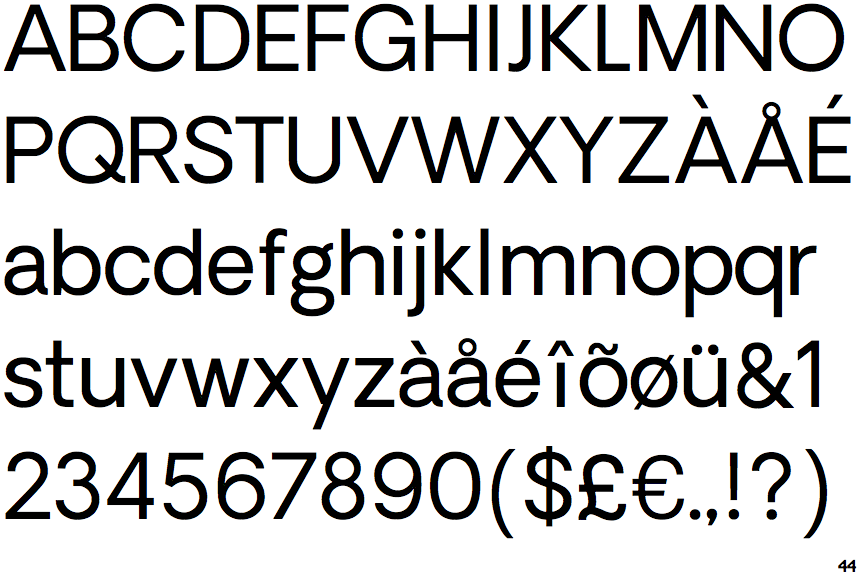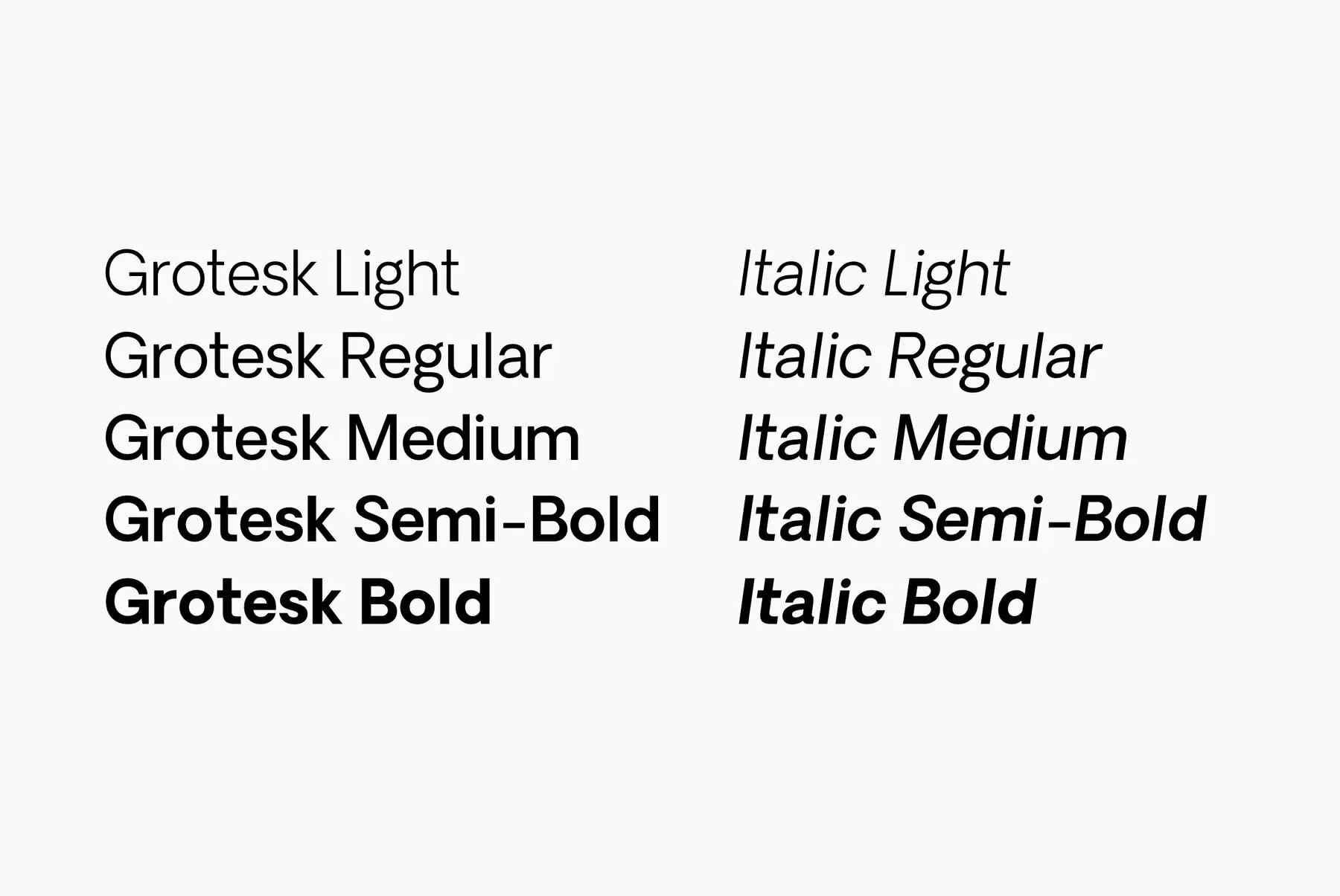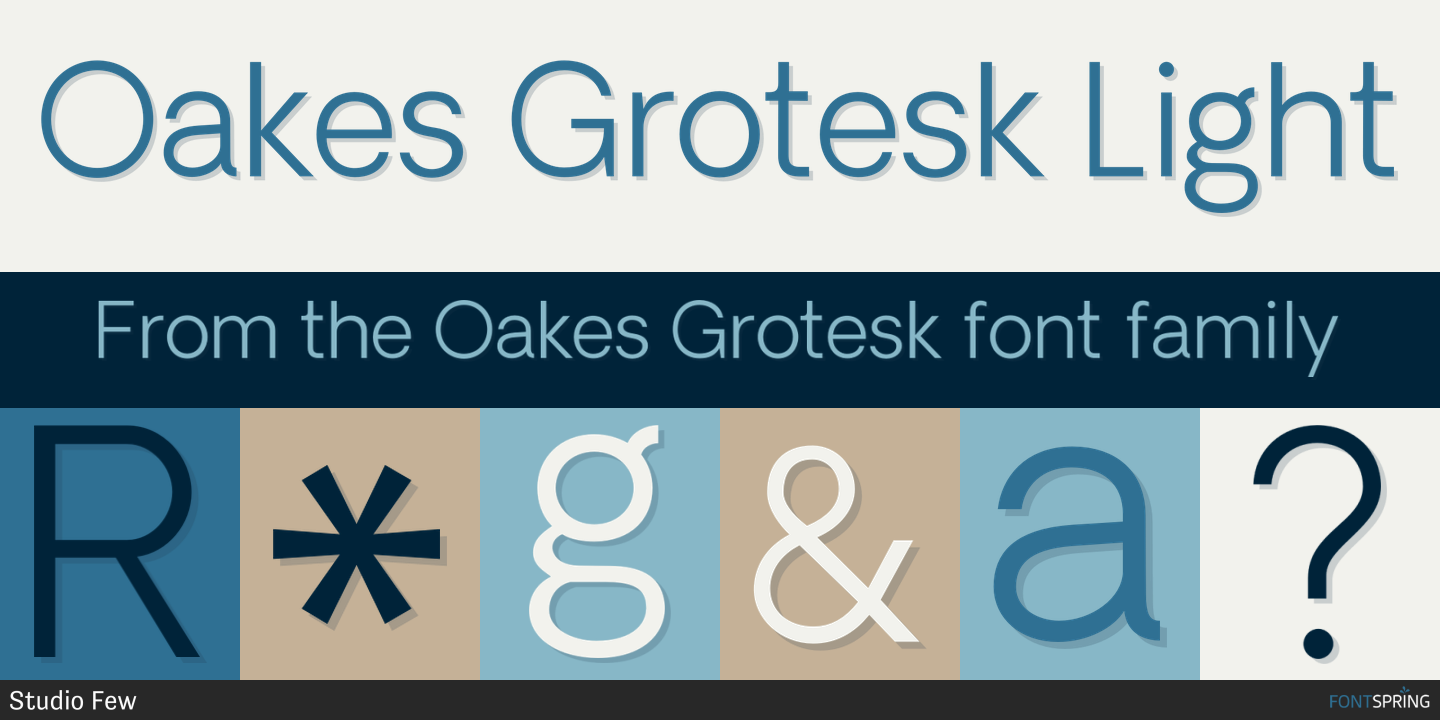
Oakes Bold Font . The designer has added the set of brand new metrics which make it more applicable for body text and headings. That’s why it consider as a perfect font for adding a touch of elegance in designs.
Buy & download oakes bold, a font by studio few. Oakes grotesk font is a more corporate and professional version of the original oakes typeface, designed for today’s design uses. Samuel oakes took the charge for designing it and releasing it for the first time on 22 december 2016.
Buy & download oakes bold, a font by studio few. Oakes grotesk font is a more corporate and professional version of the original oakes typeface, designed for today’s design uses. Buy & download oakes bold, a font by studio few. Elevate your designs with oakes grotesk bold font.
Oakes Bold Font - Try it now or buy it at the best price. It explores a set of brand new metrics that allow it to be more legible in body. The designer has added the set of brand new metrics which make it more applicable for body text and headings. Oakes grotesk font is a more corporate take on the oakes typeface. Learn.
Oakes Bold Font - It explores a set of brand new metrics that allow it to be more. Oakes grotesk font is a more corporate and professional version of the original oakes typeface, designed for today’s design uses. Learn more about its features, similar fonts, and font pairing. That’s why it consider as a perfect font for adding a touch of elegance in designs..
Oakes Bold Font - Samuel oakes took the charge for designing it and releasing it for the first time on 22 december 2016. The characters are evenly spaced with a consistent. Learn more about its features, similar fonts, and font pairing. As a general improvement of its flexibility, it adds new metrics that increase readability no matter the context, be it text or headings..
Oakes Bold Font - Elevate your designs with oakes grotesk bold font. The designer has added the set of brand new metrics which make it more applicable for body text and headings. The characters are evenly spaced with a consistent. It explores a set of brand new metrics that allow it to be more legible in body. As a general improvement of its flexibility,.
Oakes Bold Font - Oakes grotesk font is a more corporate and professional version of the original oakes typeface, designed for today’s design uses. Samuel oakes took the charge for designing it and releasing it for the first time on 22 december 2016. Installable on pc, mac, linux, ios, and android platforms. That’s why it consider as a perfect font for adding a touch.
Oakes Bold Font - It explores a set of brand new metrics that allow it to be more. Elevate your designs with oakes grotesk bold font. The characters are evenly spaced with a consistent. That’s why it consider as a perfect font for adding a touch of elegance in designs. Samuel oakes took the charge for designing it and releasing it for the first.
Oakes Bold Font - It explores a set of brand new metrics that allow it to be more. The characters are evenly spaced with a consistent. Try it now or buy it at the best price. The designer has added the set of brand new metrics which make it more applicable for body text and headings. Oakes grotesk is a more corporate take on.
Oakes Bold Font - The designer has added the set of brand new metrics which make it more applicable for body text and headings. Samuel oakes took the charge for designing it and releasing it for the first time on 22 december 2016. Try it now or buy it at the best price. Elevate your designs with oakes grotesk bold font. Learn more about.
Oakes Bold Font - The characters are evenly spaced with a consistent. Oakes grotesk font is a more corporate take on the oakes typeface. Buy & download oakes bold, a font by studio few. Installable on pc, mac, linux, ios, and android platforms. Oakes grotesk font is a more corporate and professional version of the original oakes typeface, designed for today’s design uses.
Oakes Bold Font - Learn more about its features, similar fonts, and font pairing. The characters are evenly spaced with a consistent. It explores a set of brand new metrics that allow it to be more legible in body. Oakes grotesk font is a more corporate take on the oakes typeface. As a general improvement of its flexibility, it adds new metrics that increase.
Oakes Bold Font - It explores a set of brand new metrics that allow it to be more. The designer has added the set of brand new metrics which make it more applicable for body text and headings. Samuel oakes took the charge for designing it and releasing it for the first time on 22 december 2016. It explores a set of brand new.
Oakes Bold Font - Oakes grotesk font is a more corporate and professional version of the original oakes typeface, designed for today’s design uses. Oakes grotesk is a more corporate take on the oakes typeface. Samuel oakes took the charge for designing it and releasing it for the first time on 22 december 2016. Try it now or buy it at the best price..
Oakes Bold Font - The designer has added the set of brand new metrics which make it more applicable for body text and headings. Buy & download oakes bold, a font by studio few. Oakes grotesk is a more corporate take on the oakes typeface. It explores a set of brand new metrics that allow it to be more. Elevate your designs with oakes.